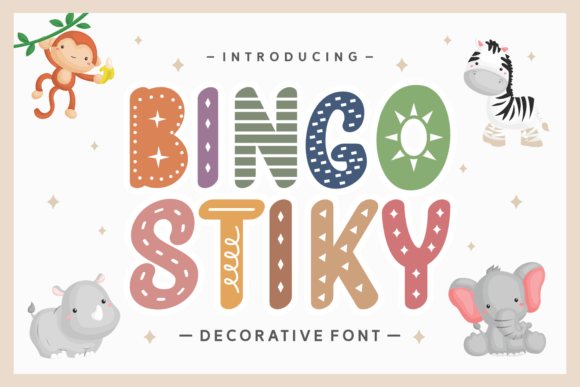
The Joy of Bingo Stiky Font: A Designer’s Delight
I still remember the day I stumbled upon the Bingo Stiky font while working on a project for a children’s birthday party. I was on a mission to find the perfect font that would capture the playful and whimsical spirit of the celebration. As I scrolled through my font library, Bingo Stiky caught my eye with its bright, bold colors and quirky design. It was love at first sight! 💕
In this article, I’ll share my experience with Bingo Stiky, its unique features, and how to make the most of this delightful font in your designs.
An Honest Review of Bingo Stiky
- ✨ Unique and playful design that’s sure to grab attention
- ✅ Bright, bold colors that add a pop of fun to any project
- 🎉 Quirky and carefree spirit that’s perfect for children’s projects or playful branding
- 💻 Highly versatile and can be used for various design applications, from digital to print
- ⚠️ May not be suitable for formal or professional projects due to its playful nature
- 🤔 Limited use of uppercase letters, but the font makes up for it with its stylistic alternates
The Story Behind Bingo Stiky
Bingo Stiky was designed with the intention of capturing the carefree spirit of childhood. Its creator, a freelance designer with a passion for playful typography, wanted to craft a font that would bring joy and whimsy to design projects. With its bright colors and quirky design, Bingo Stiky has become a beloved font among designers and crafters.
Q: What type of projects is Bingo Stiky best suited for?
A: Bingo Stiky is perfect for children’s projects, party invitations, playful branding, and any design that requires a touch of whimsy and fun.